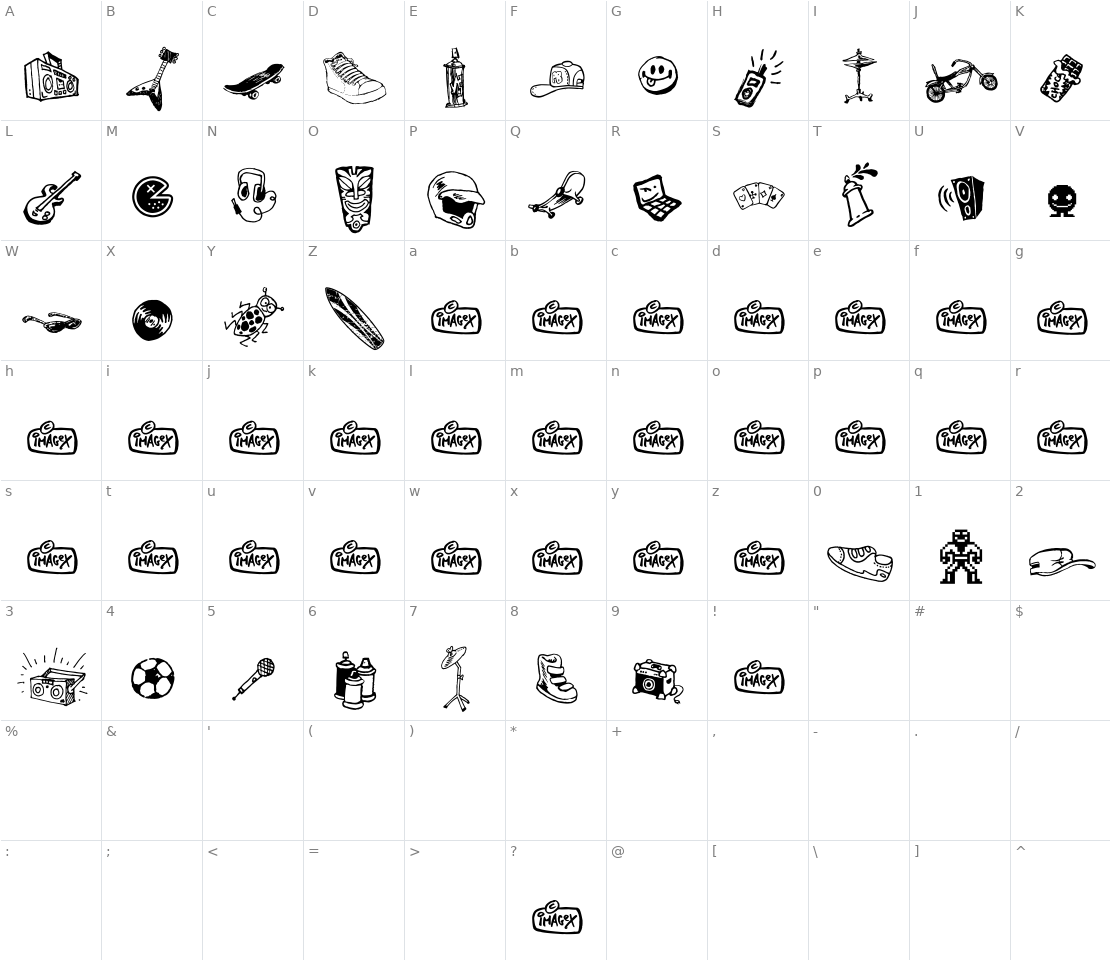
In my Room
In my Room is a dingbat font from imagex filled with hand-drawn household objects and everyday symbols that have a loose, sketchy charm to them. The icons feel quirky and personal rather than polished, like quick illustrations pulled from someone's notebook. Useful for adding playful spot illustrations to invitations, zines, or informal layouts where a little visual warmth goes a long way.